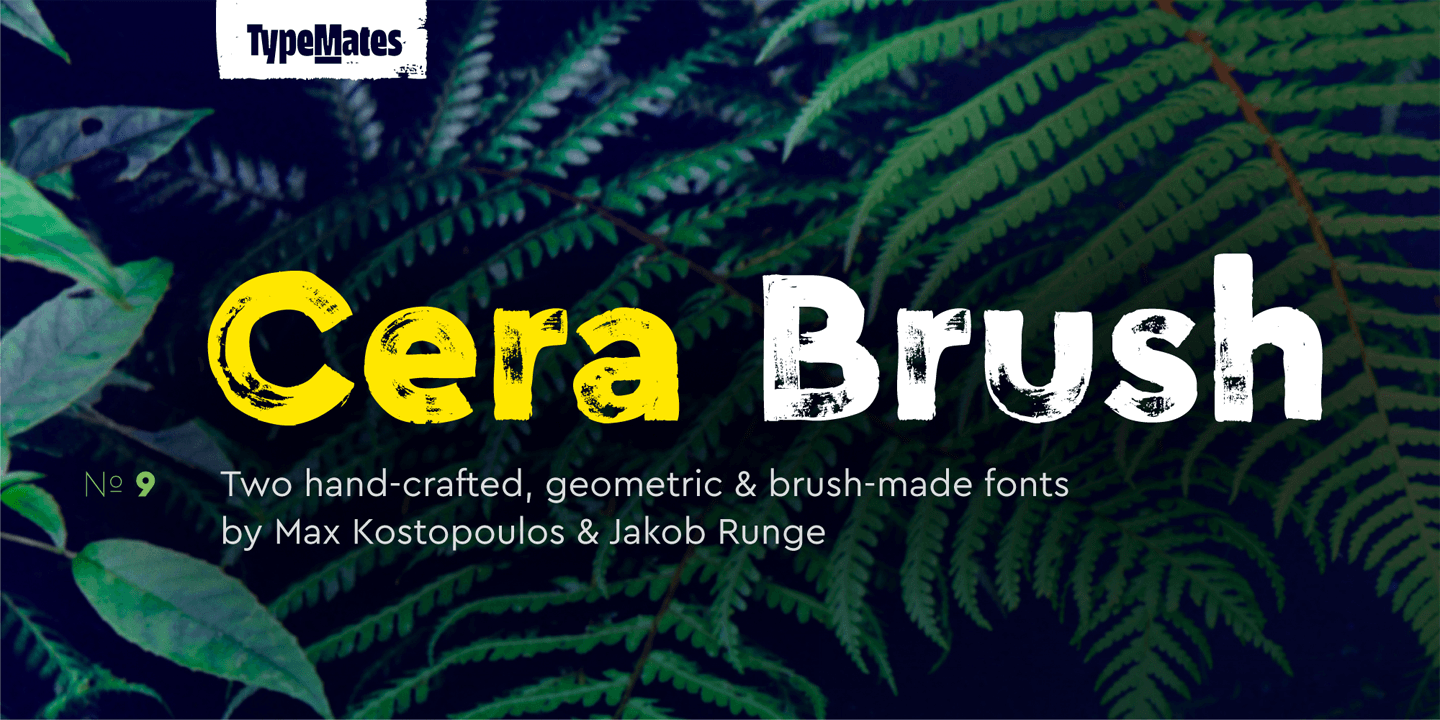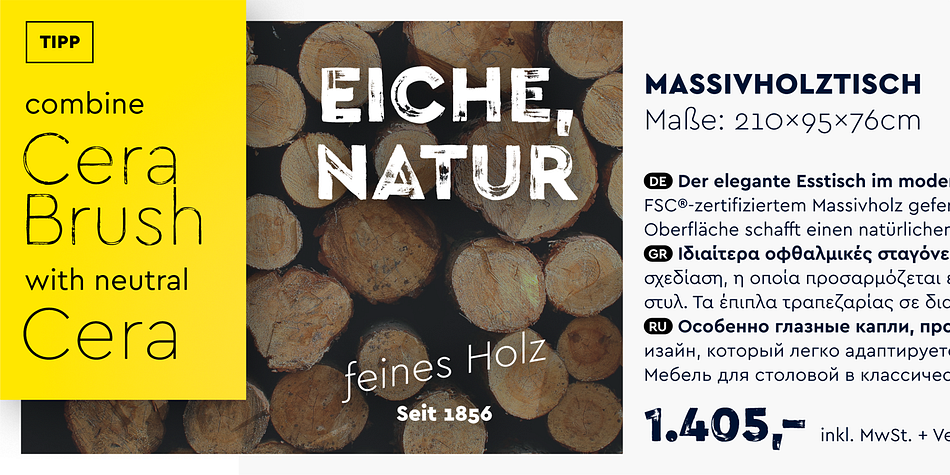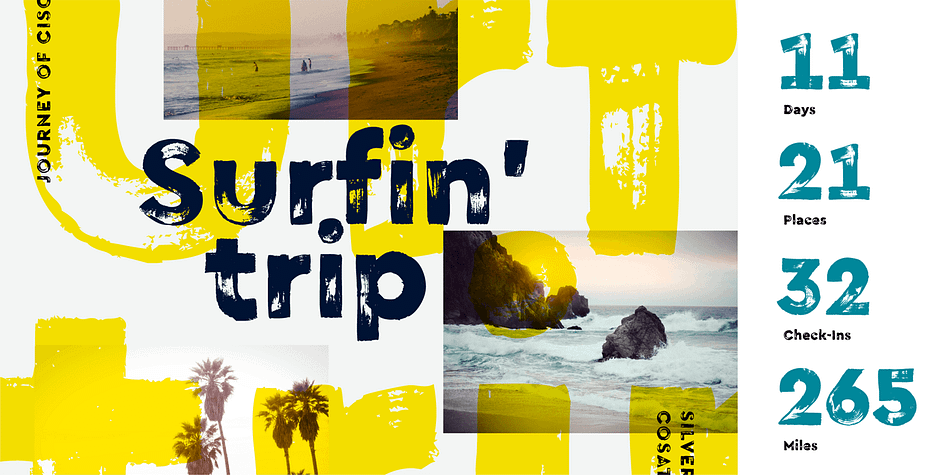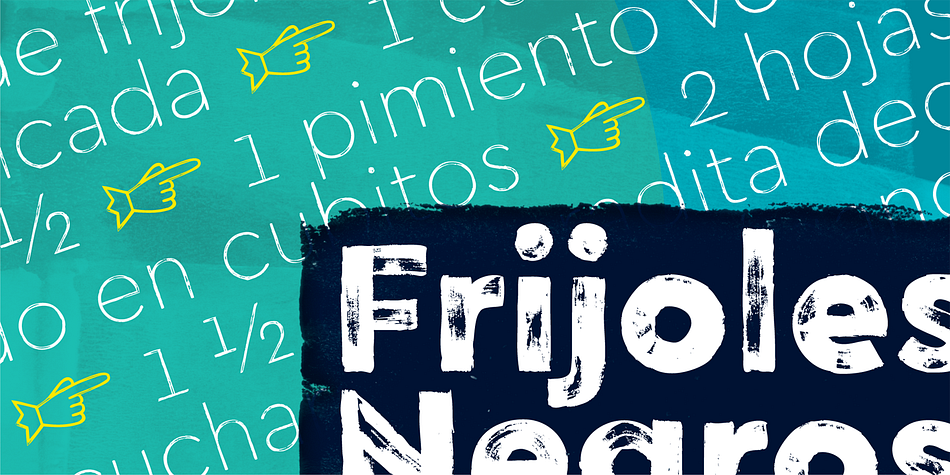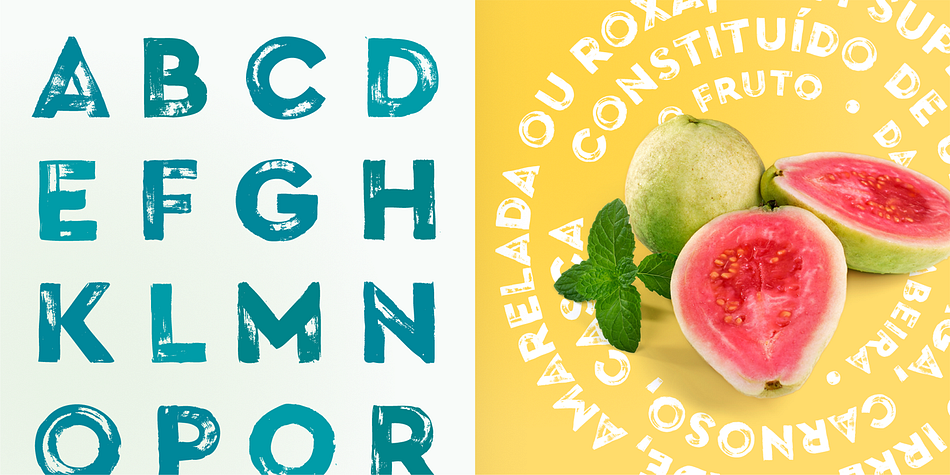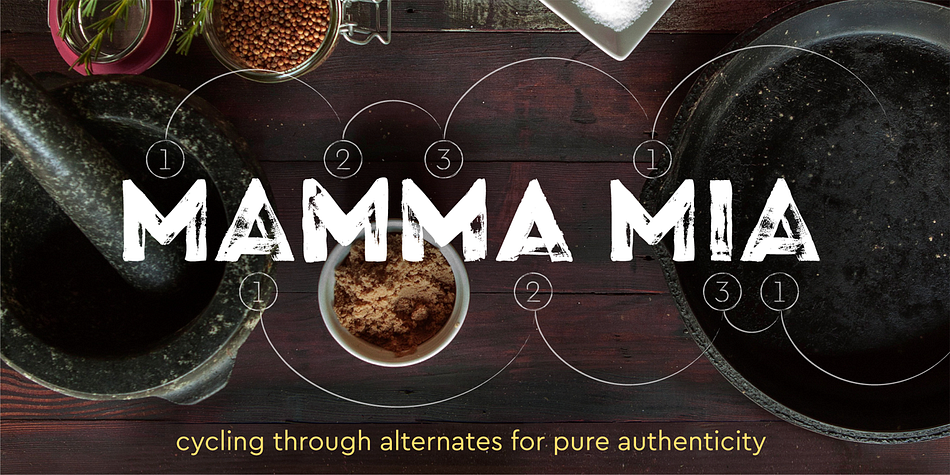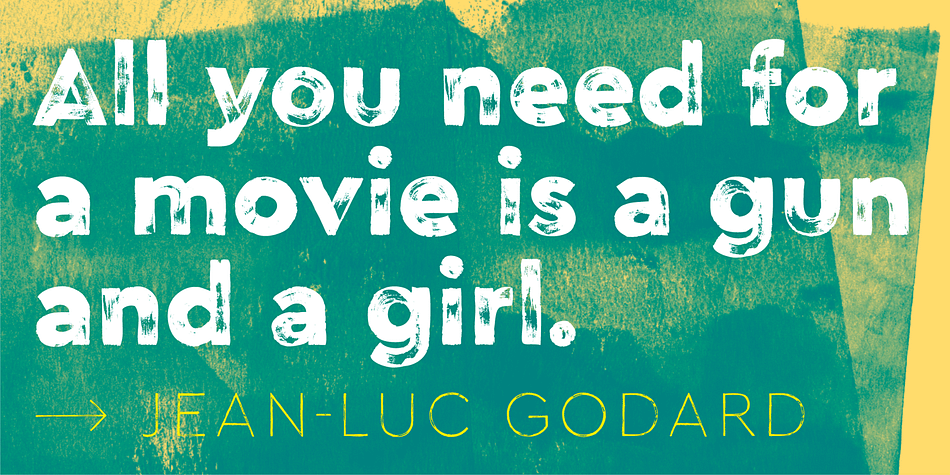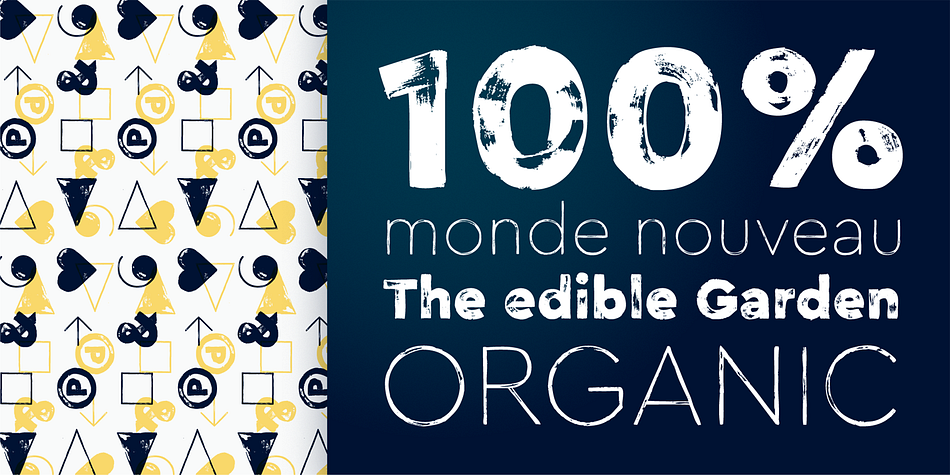
Designed by Jakob Runge and Max Kostopoulos, Cera Brush is a grunge and brush display font family. This typeface has two styles and was published by TypeMates.
Cera Brush is the handmade display companion to clean multi-script Cera and Cera Stencil.The Cera Collection is driven by pure geometry and contains bestselling Cera plus its stenciled counterpart Cera Stencil, Cera Condensed, the hand-crafted display companion Cera Brush, and the soft Cera Round.
Focussing on the extreme light and bold weights, Cera Brush was drawn by hand with various alternate glyphs. To keep the lively feeling of custom lettering, the OpenType ligature feature has been coded to ensure these variations are used automatically and thoughtfully.
Although a display typeface, both weights of Cera Brush include features like tabular figures and fractions, a wide Latin language support and useful symbols. Including contextual alternates, Cera Brush contains more than 1,300 glyphs per weight.
High-resolution detailing ensures that Cera Brush works well at huge point sizes, making the typeface almost destined for headlines about authentic cooking, organic food and drink — or for any other topic that requires a hand-crafted design.